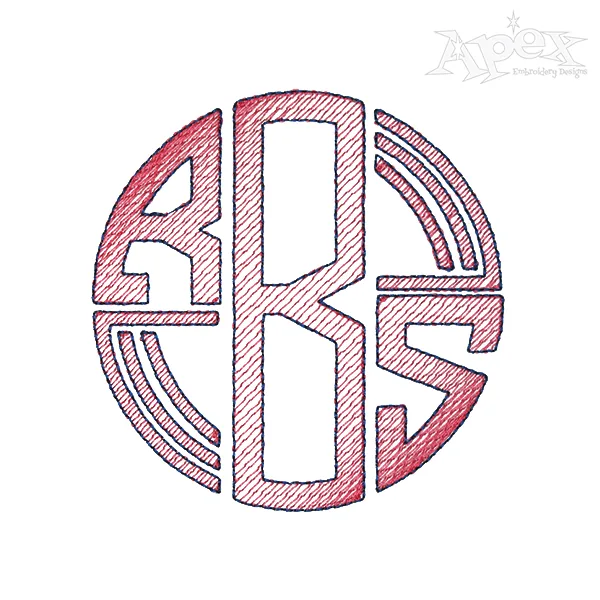
Round Lined Circle Gradient Sketch Embroidery Font
There is a distinct, understated luxury in needlework that breathes alongside the textile rather than overpowering it. Born from an appreciation for mid-century modern circular silhouettes and contemporary painterly shading, the Round Lined Circle Gradient Sketch Monogram Embroidery Font transforms classic initialing into a breezy, architectural statement. By balancing clean geometric enclosing rings with intentionally varied, open-density sketch fills, this design captures light and motion on fabric, giving your personalized gifting and bespoke resort pieces an effortless, sun-bleached elegance that feels both curated and inherently handcrafted.
Round Lined Circle Gradient Sketch Font Craft & Letterform Details
Standard circular monograms often suffer from an overabundance of thread: heavy, bulletproof satin blocks that pull fabrics out of shape and create rigid badges on pliable cloth. In digitizing this alphabet, our aim was to honor the iconic rounded monogram silhouette while redefining its internal architecture through light-diffusing sketch work.
The outer concentric lines provide crisp, tailored definition, grounding the circular boundary with precise pathing that guides the eye. Inside, the typography blooms with a gradient sketch fill—strokes that thoughtfully transition in density to emulate the sweep of an artisan's pencil. Every travel stitch is tucked invisibly beneath the contour passes, and pull compensation has been micro-engineered to ensure the enclosing circles stitch as true, harmonious rings across varied grain directions. The result is a tactile, breathable monogram font that drapes like silk while leaving an indelible visual impression.